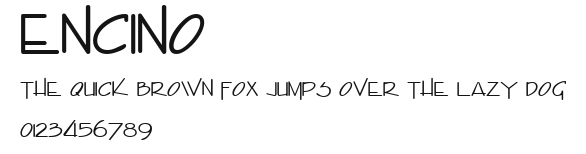
Encino Preview
• Font Name: Encino
• Full Font Name: Encino Regular
• PostScript Name: Encino
About Encino.ttf
Encino.ttf is a modern, elegant sans-serif font designed for ultimate readability and visual harmony. Perfect for branding, headlines, web design, and print materials.